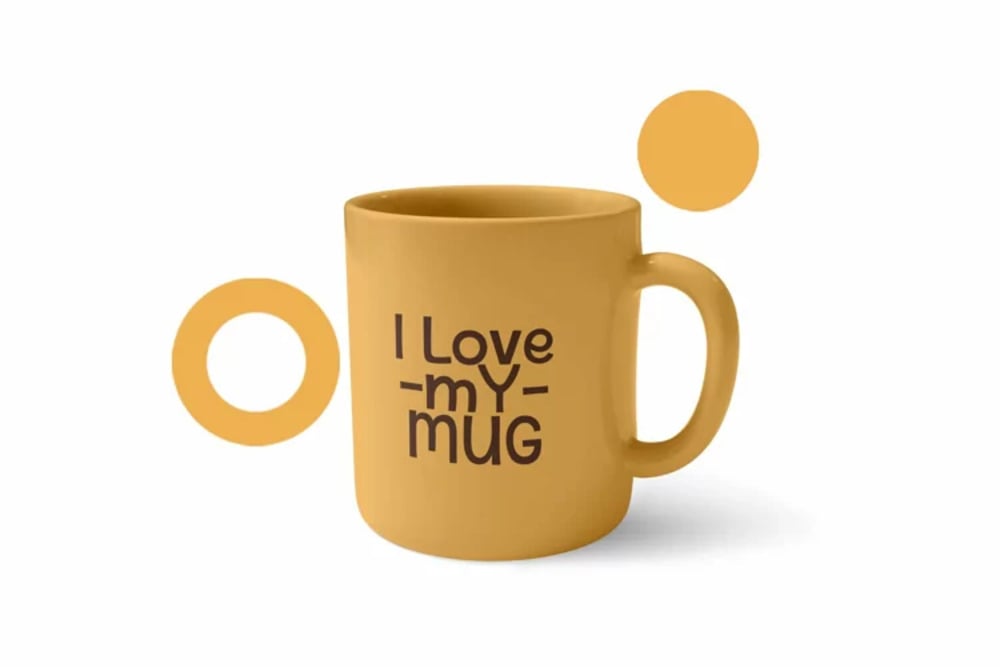
Paybread Font
Paybread Font is a versatile and inviting typeface with a touch of handmade warmth. Its charming curves and friendly shapes evoke a sense of comfort and approachability, making it perfect for projects that require a human touch. From food blogs and bakery branding to children’s books and friendly invitations, Paybread adds a touch of genuine warmth and personality to any design.